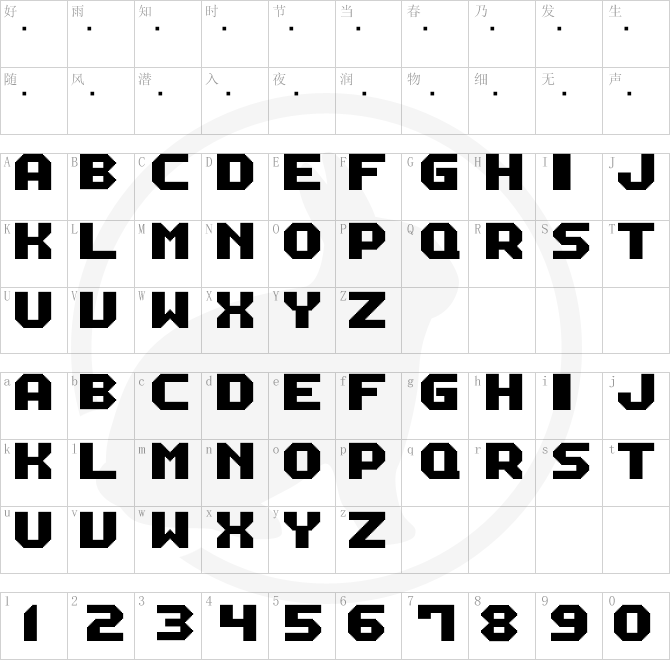
- Font Name:M12_MACH BIKER
M12_MACH-BIKER.ttf is a very beautiful artistic font, M12_MACH-BIKER.ttf is widely used in the design and printing of various books and pictures,M12_MACH-BIKER.ttf has a strong visual impact,M12_MACH-BIKER.ttf is a commonly used font in newspapers, magazines and books, and is used in posters, e-commerce Poster design, store design, logo design, font design and other fields.M12_MACH-BIKER.